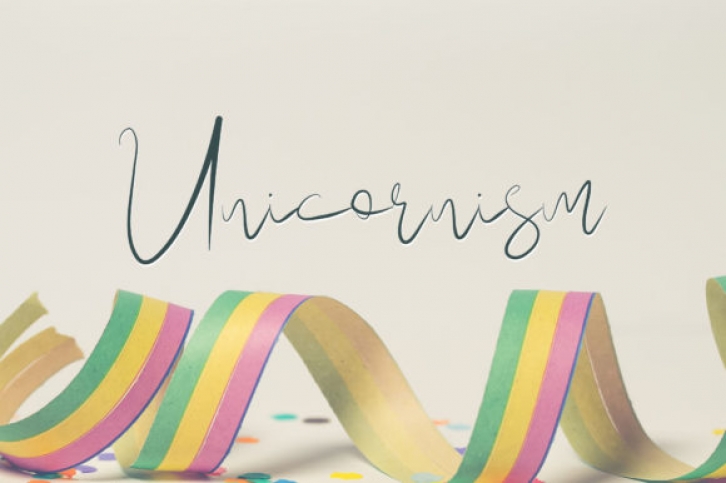
Unicornism is a script font with beautiful curves and a luscious style. This font features characters dancing along a baseline. No matter the topic, this font will turn any creative idea into a true work of art!